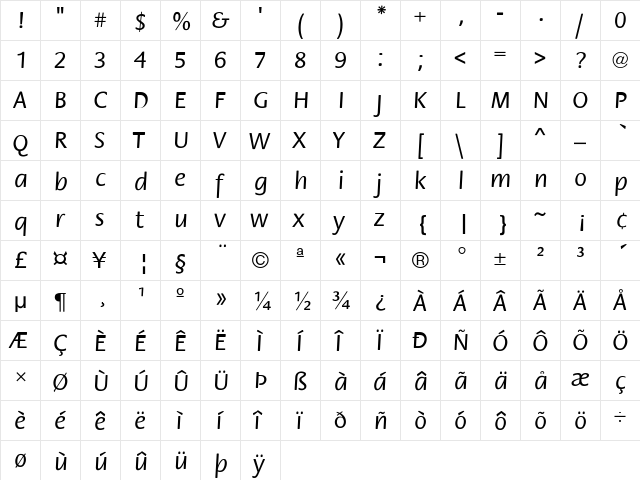
Flora-Normal Regular
Design Context for Flora-Normal Typeface
Flora-Normal takes a measured approach to typography — its balanced proportions and neutral character make it a reliable workhorse for both digital and print work.